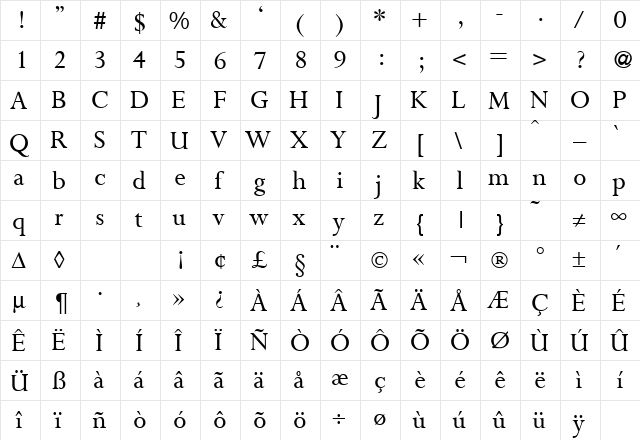
Perspective Regular
Design Context for Perspective Typeface
Perspective takes a measured approach to typography — its balanced proportions and neutral character make it a reliable workhorse for both digital and print work.